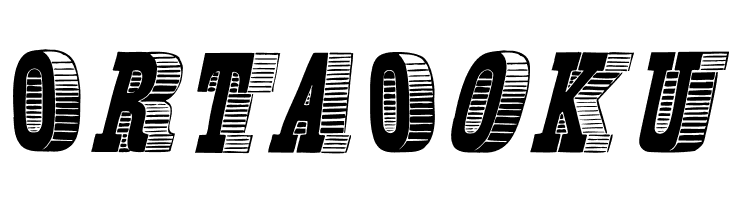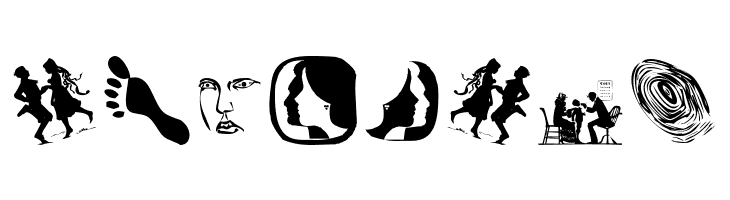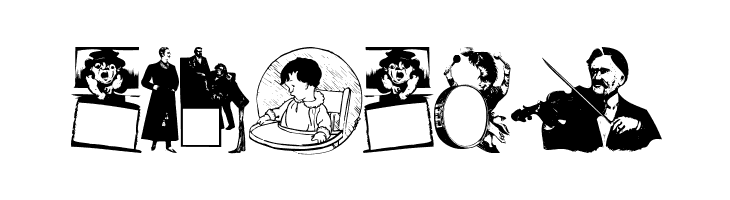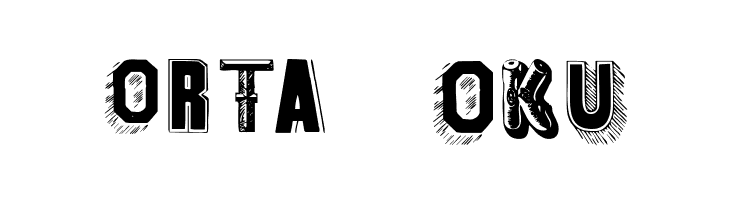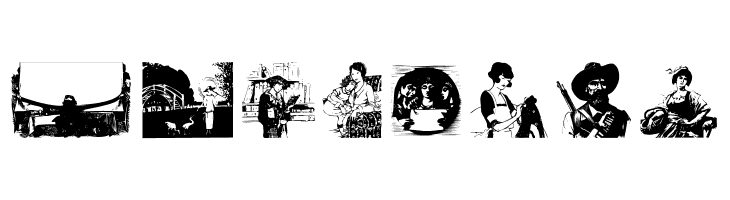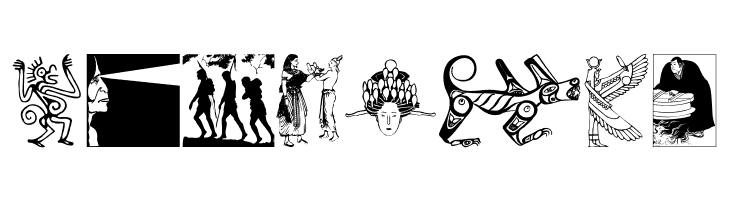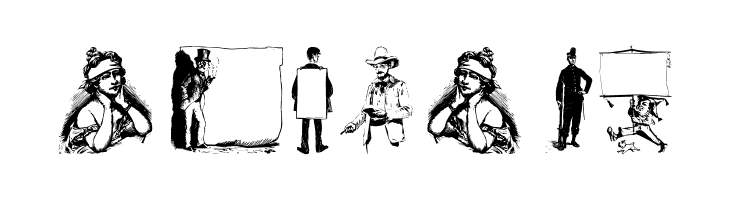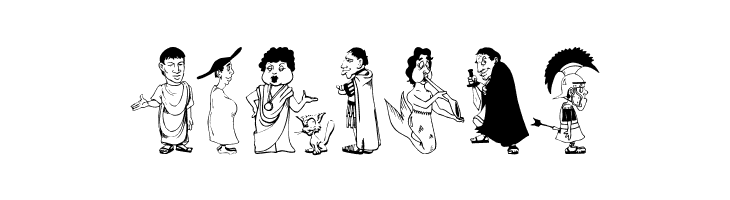
• OldFashionedClichees
A whimsical collection of vintage-style illustrations depicting classic clichés.
• OldFashionPeople
A collection of vintage illustrations depicting nostalgic scenes and characters.
• OldfashionPeopleTwo
Intricate vintage illustrations of people and scenes.
• OldFramesSymbols
Ornamental symbol set with vintage frames and flourishes.
• OldGreekButtons
A bold, decorative font with characters enclosed in circular shapes, inspired by ancient Greek designs.
• OldiesButGoodies
A decorative and eclectic font with unique, vintage-inspired letter designs.
• OldLettresOmbrees
A bold, decorative font with a shadow effect and intricate detailing.
• OldRomaUno
Cartoonish Roman-themed pictorial font with detailed illustrations.
• OldScissorCuts
A decorative font featuring intricate silhouette illustrations for each character.
• OldSignArtsOne
Ornate pictorial font with ancient and historical motifs.